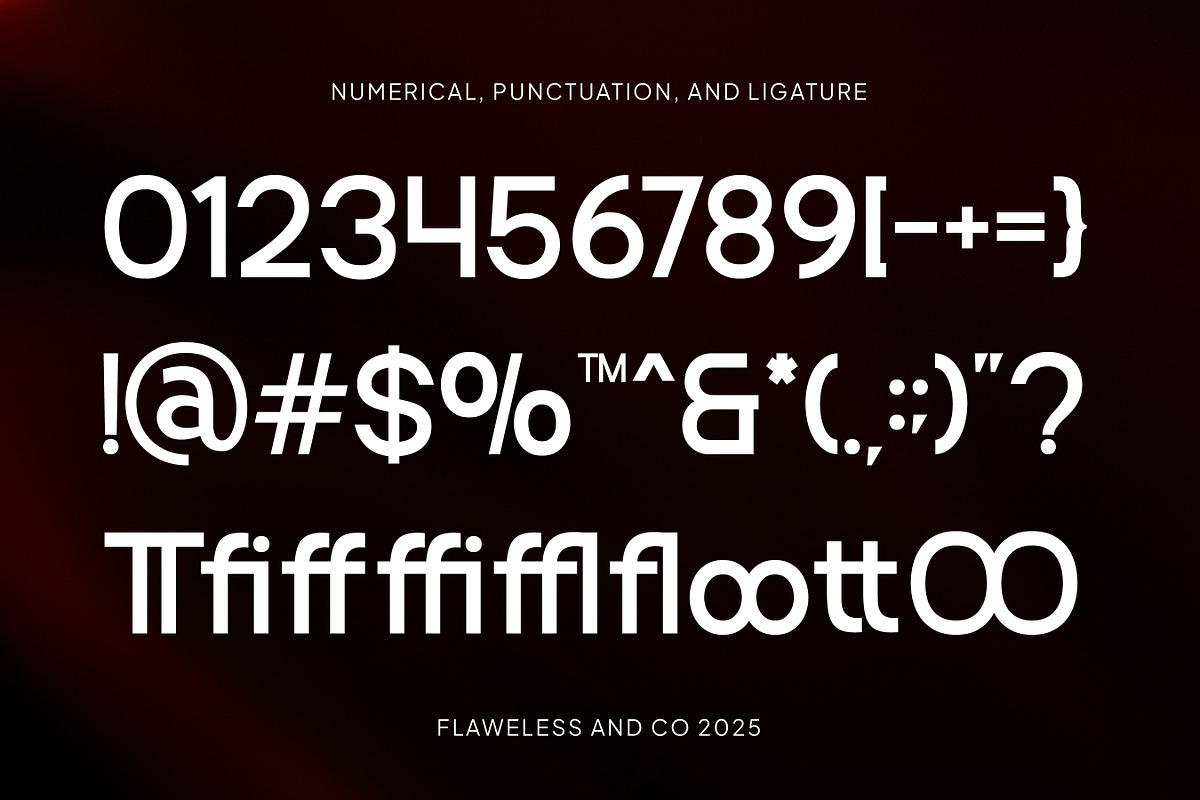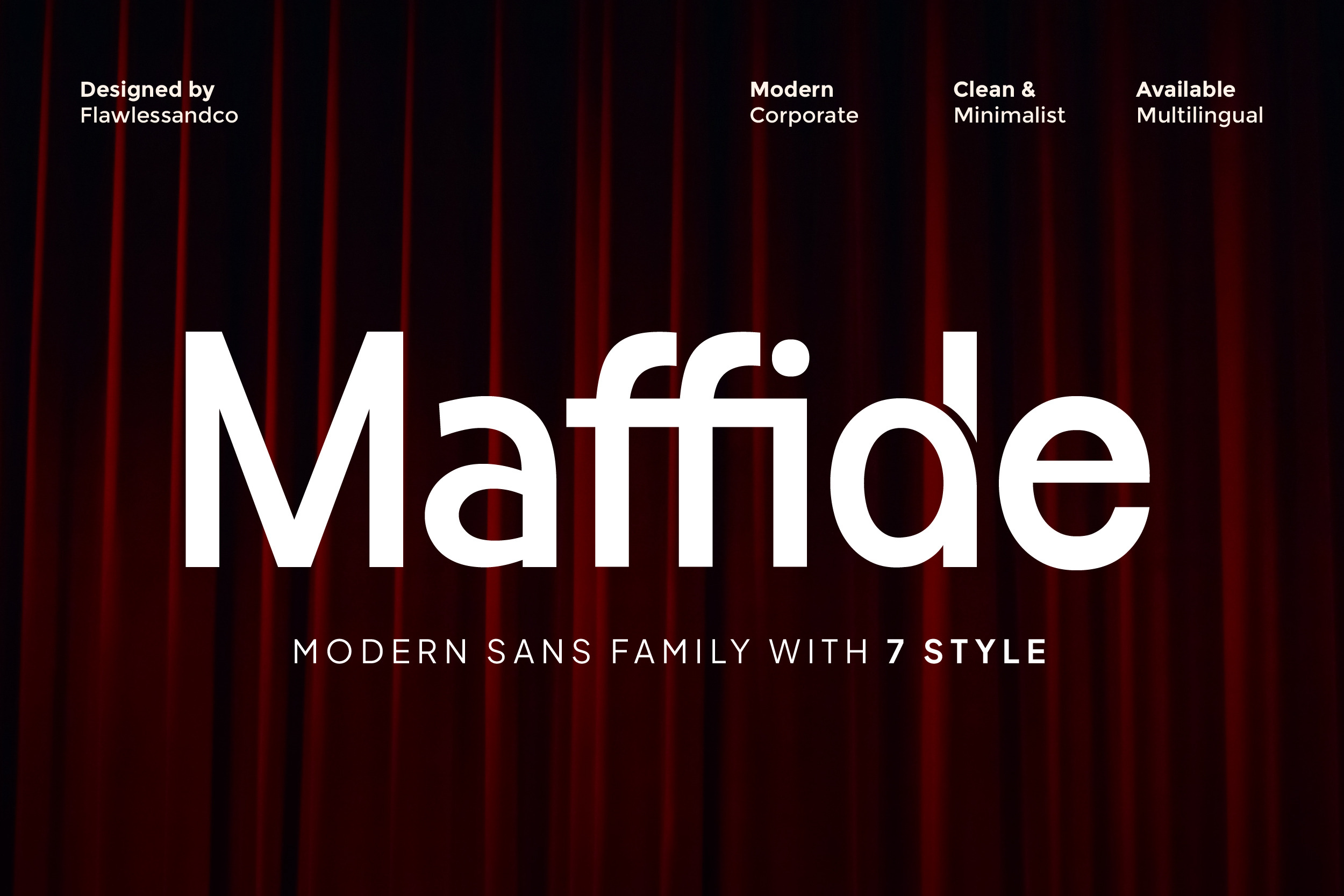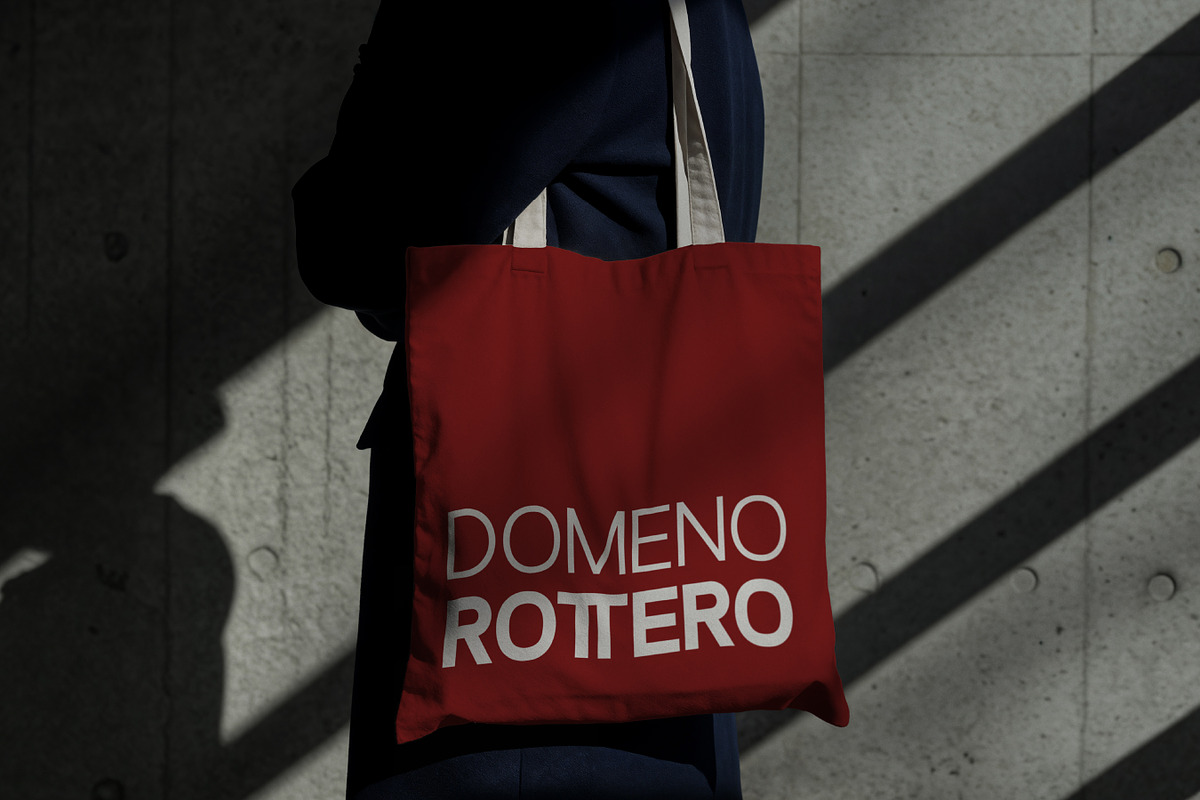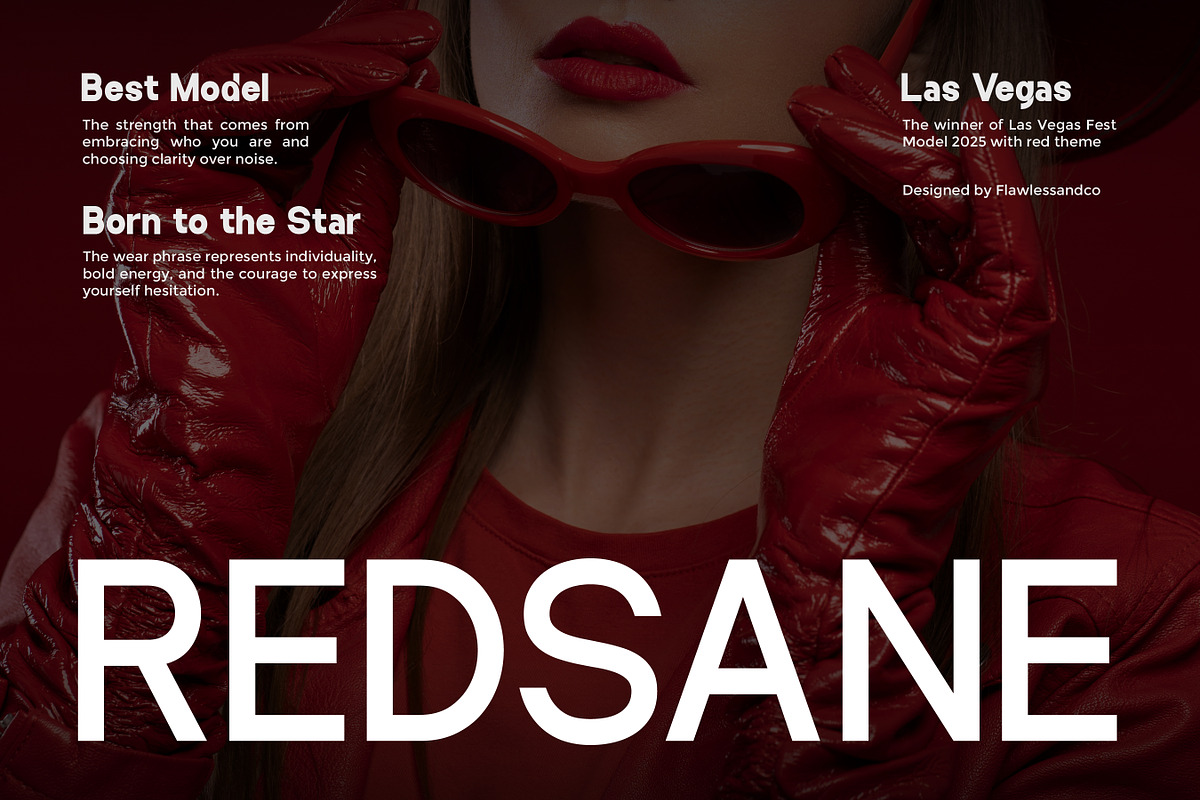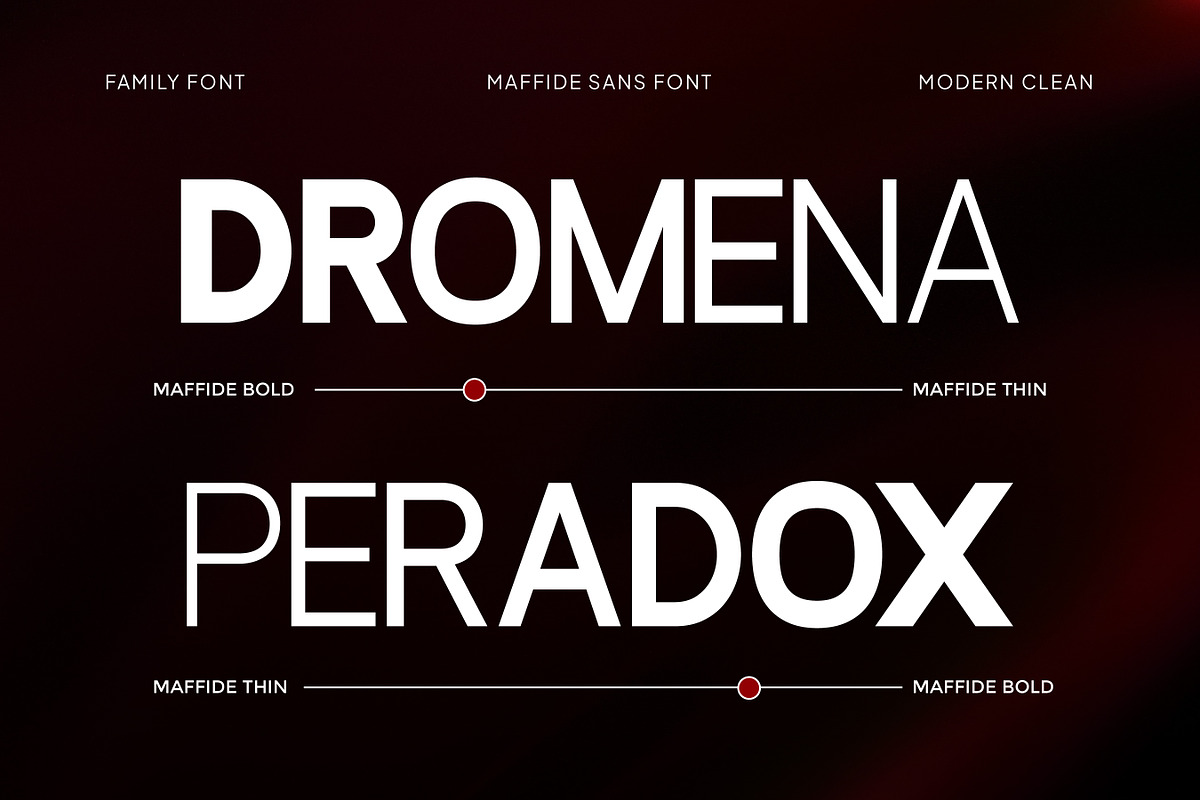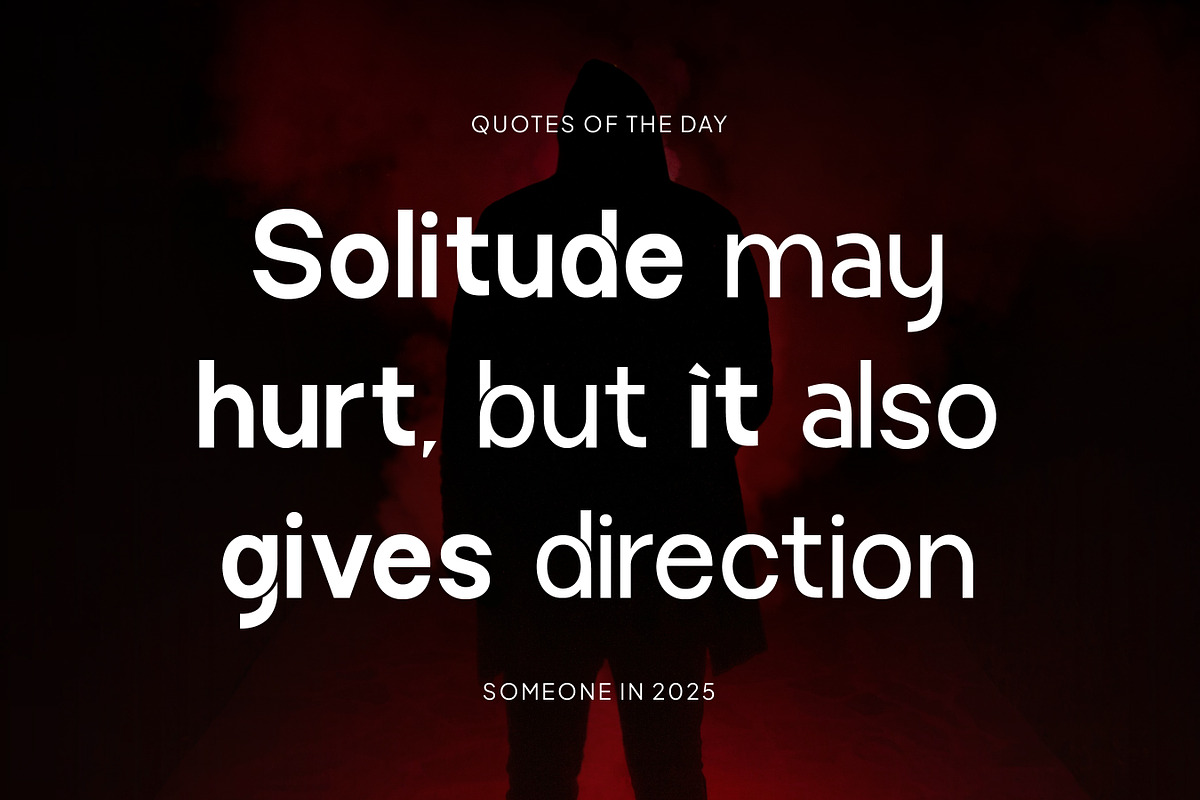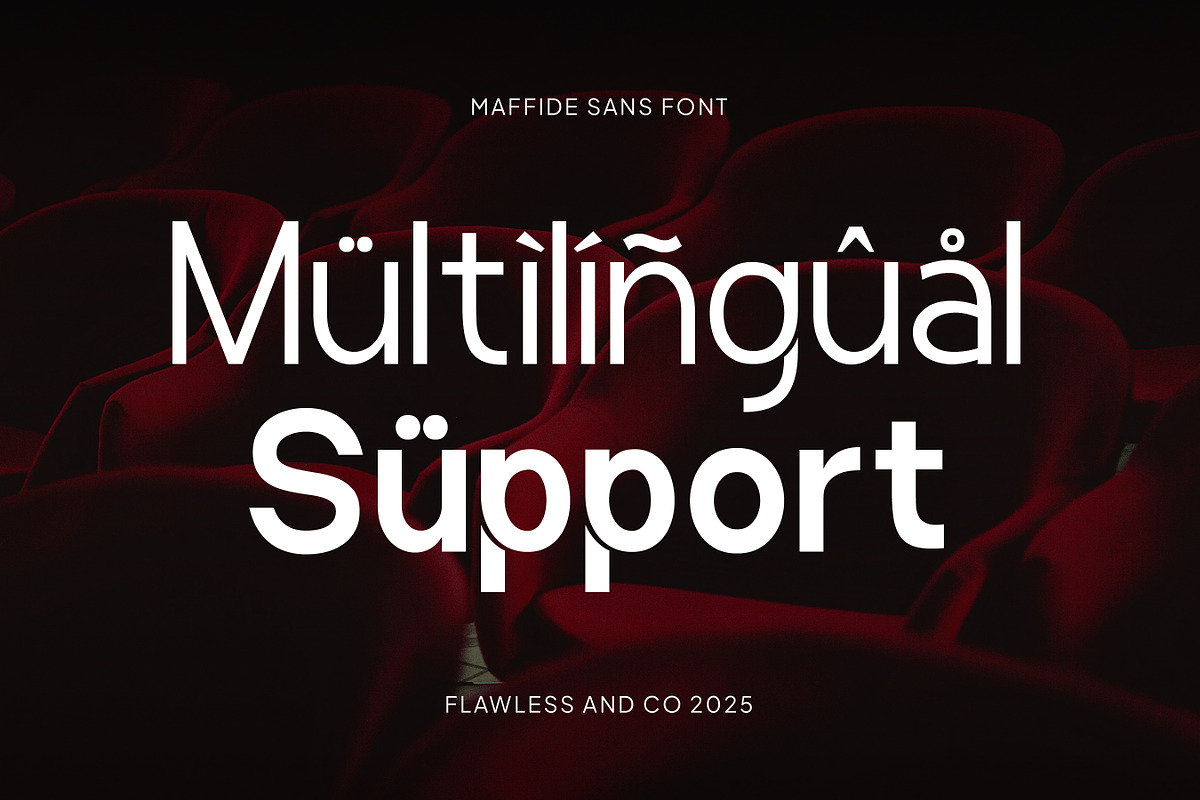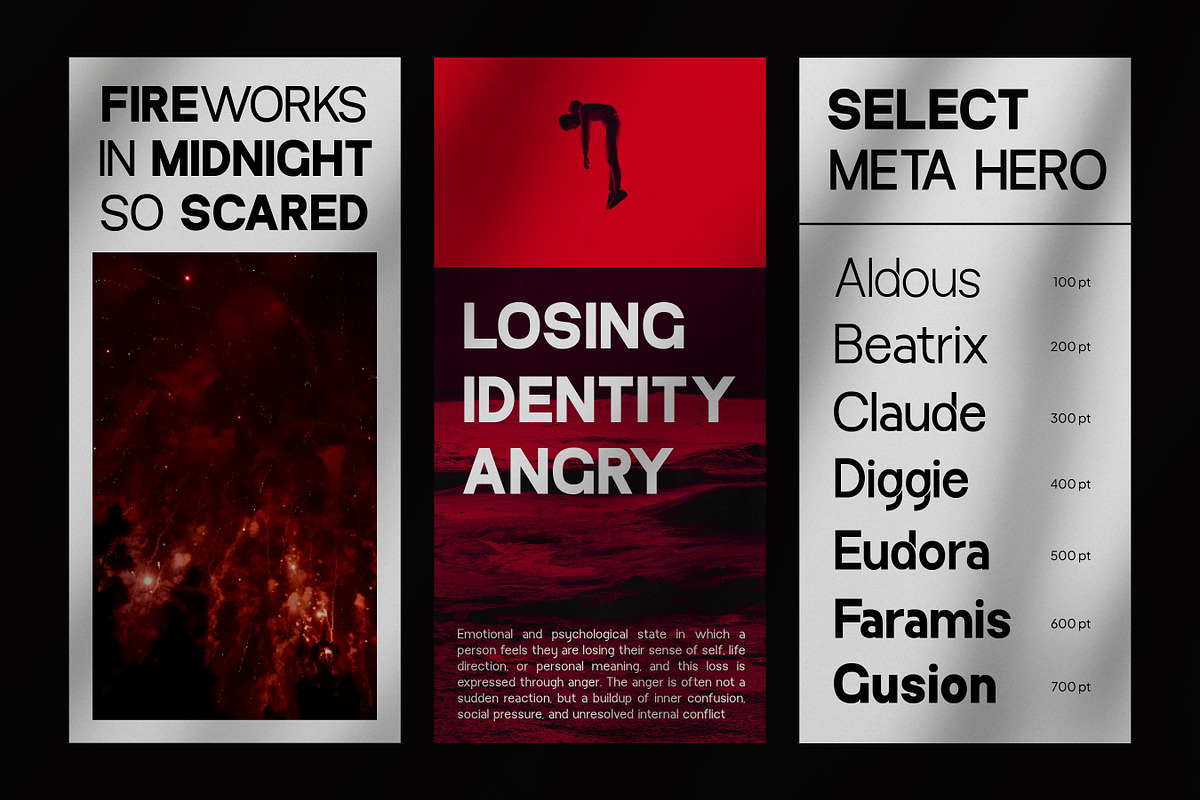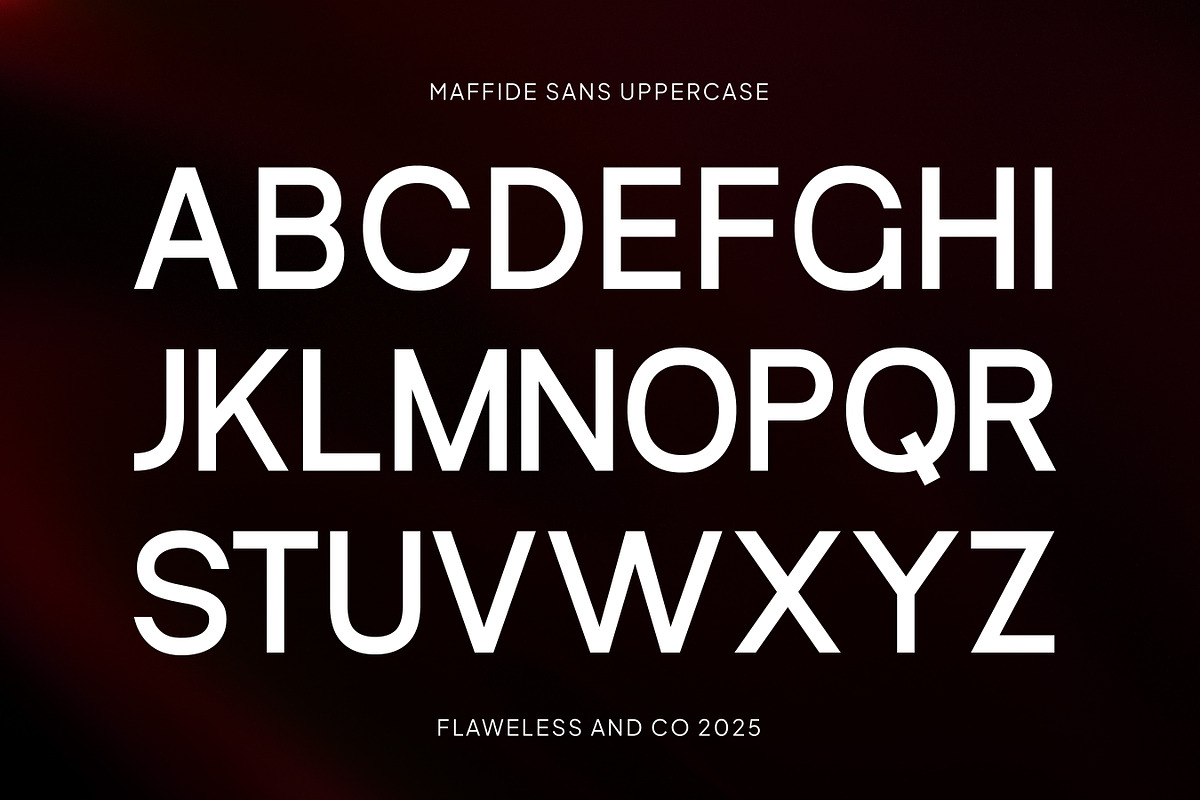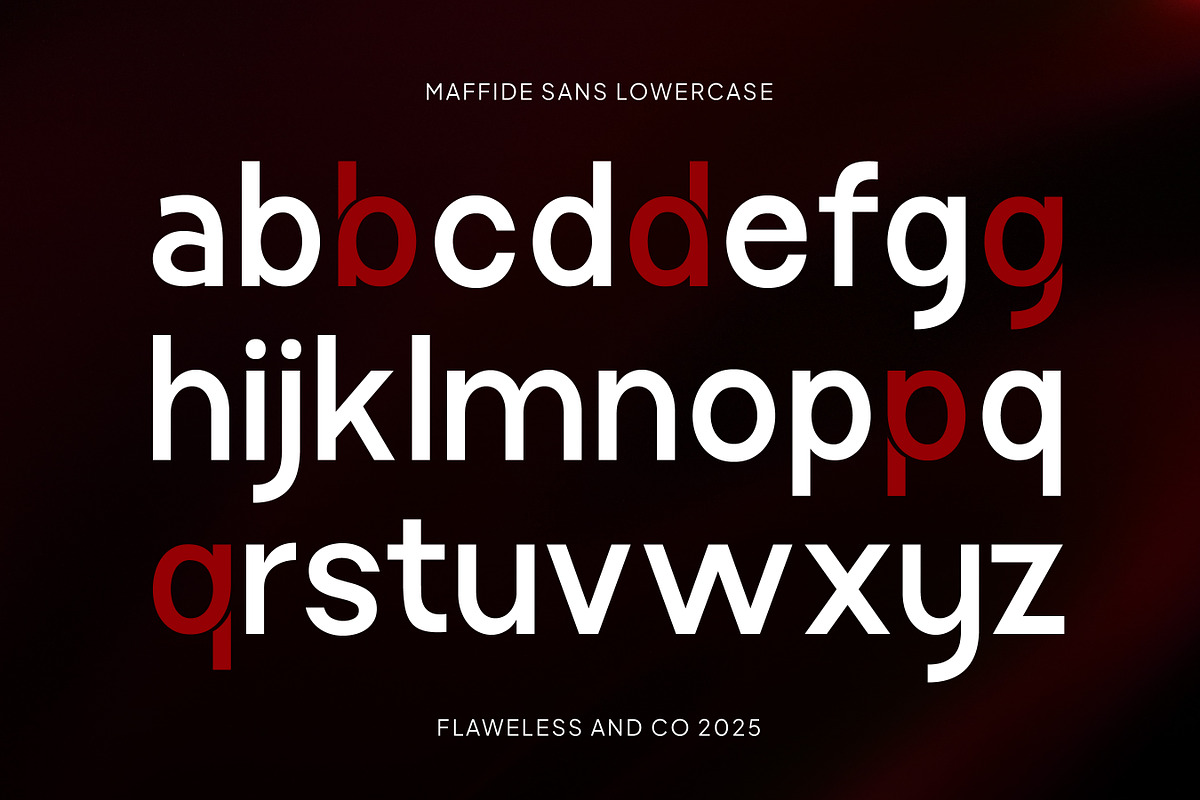
Maffide - Sans Serif Family Font
Maffide is a modern sans serif family font designed to deliver a clean, professional, and contemporary look. With its balanced proportions and smooth letterforms, Maffide offers excellent readability while maintaining a strong visual presence. The family includes 7 versatile styles, making it easy to build clear hierarchy and consistent layouts across different design needs.
Who Should Use Maffide?
Maffide is ideal for graphic designers, brand designers, and creative professionals who need a modern sans serif font with a clean and minimalist feel. It is perfect for businesses, startups, agencies, and corporate teams looking to create professional branding, logos, websites, presentations, and marketing materials.
Suitable For
- Branding & visual identity
- Logo design
- Corporate & business projects
- Website & UI/UX design
- Presentations & pitch decks
- Editorial layouts
- Posters & headlines
- Modern digital & print designs